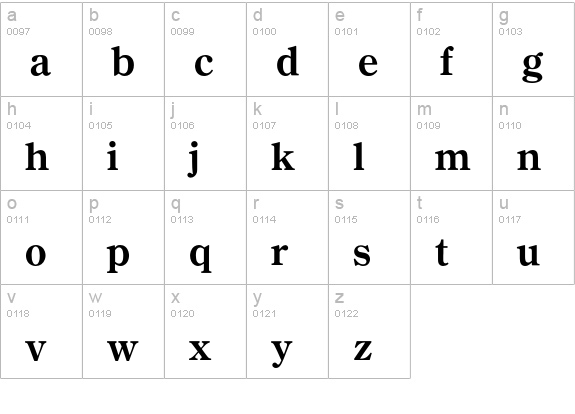
Century Old Style Bold Font Details
Century Old Style Bold is a strong, high-contrast variant in the Century typeface family \xE2\x80\x94 well suited to headlines, attention-grabbing titles, and strong calls-to-action.
Century Old Style Bold is a timeless and classic font that exudes elegance and sophistication. With its bold and striking appearance, this font is perfect for making a statement in any design project. Its vintage charm and sturdy letterforms make it ideal for headlines, logos, and branding materials. The Century Old Style Bold font is meticulously designed to provide optimal readability and visual impact. Its strong presence on the page commands attention and adds a touch of refinement to any composition. Whether used in print or digital media, this font is sure to leave a lasting impression on viewers. Best of all, Century Old Style Bold font is available for free download at FontsMarket.com. Now you can easily access this premium font without any cost, making it a valuable addition to your font collection. Don't miss the opportunity to enhance your designs with the timeless beauty of Century Old Style Bold font today!